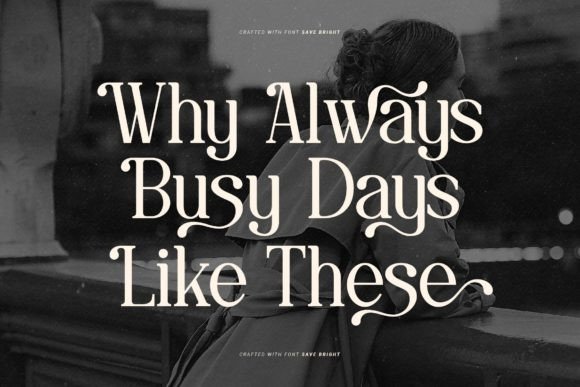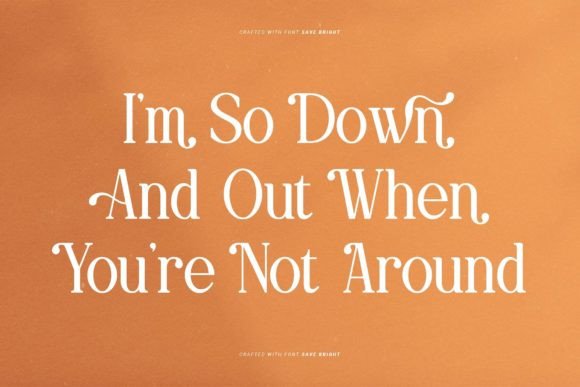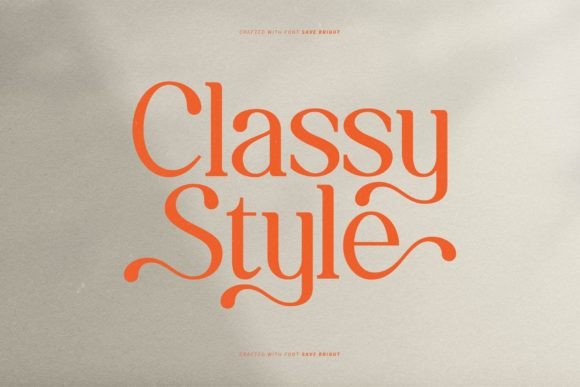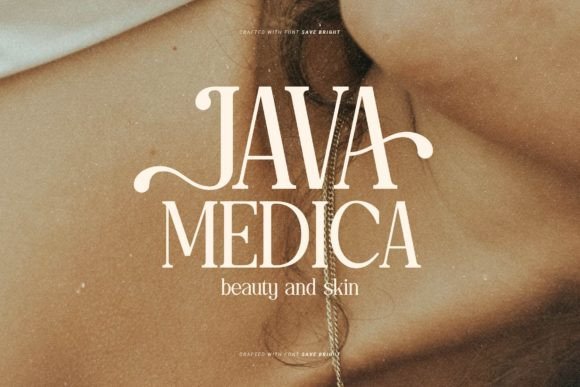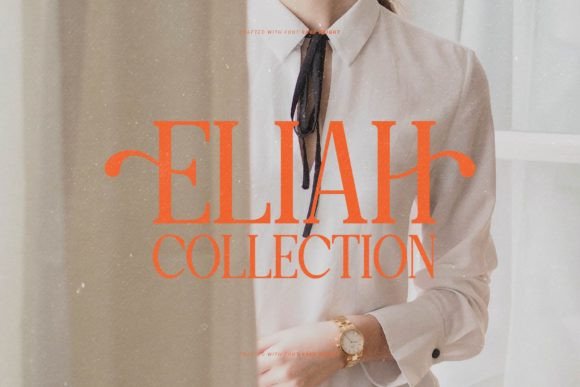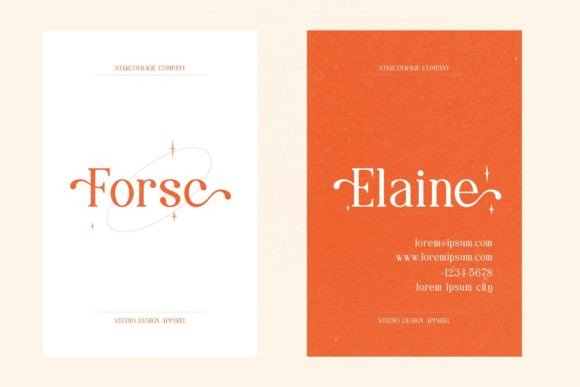
Introduction to Save Bright Font
Save Bright is a stylish and elegant serif font.
Its clean lines and sophisticated look make it perfect for classy designs like invitations, logos, and headlines The font adds a touch of luxury and professionalism to any project.
Key Features of Save Bright Font
Why Choose Save Bright Font?